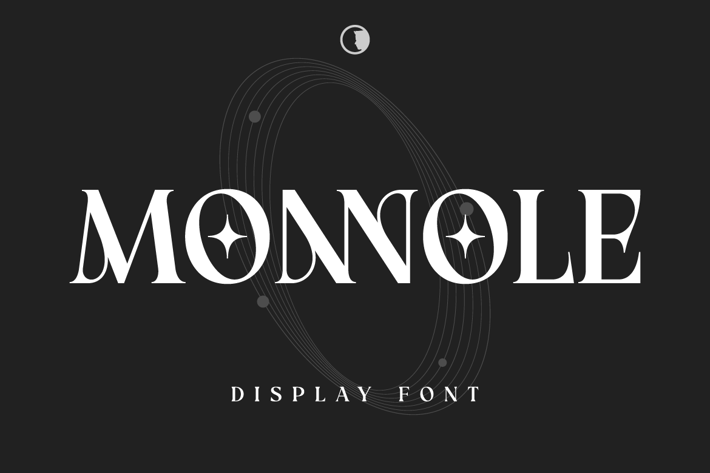
Monnole Display Font
Monnole is a Beauty display font inspired by the free writing style with a bold and shining impression.
Monnole is perfect for any design need: branding, logos, handwritten quotes, product packaging, merchandise, blog design, modern advertising design, invitations, Art Quotes, Home decor, Book/Cover Titles, Invitations, special events, birthdays, custom mugs, pillows, and many more.
Character:
- Uppercase & Lowercase Letters
- Punctuation & Symbols Support
- PUA encoded Range Standard Alternative Style
- Ligature (Standard and Discretionary)